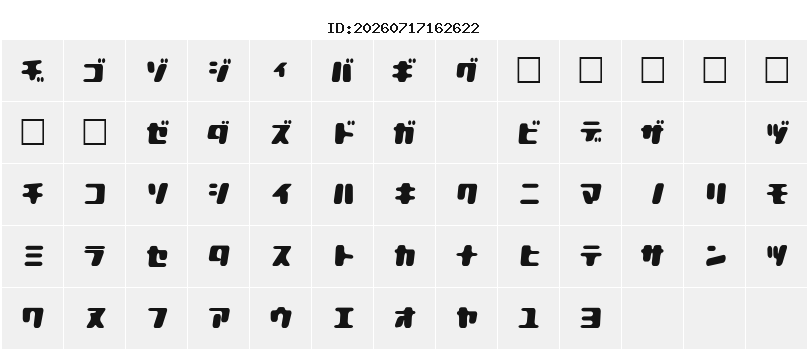
• Font Name: Bipolar
• Full Font Name: Bipolar Regular
About Bipolar.ttf
Bipolar.ttf is a modern, elegant sans-serif font designed for ultimate readability and visual harmony. Perfect for branding, headlines, web design, and print materials.